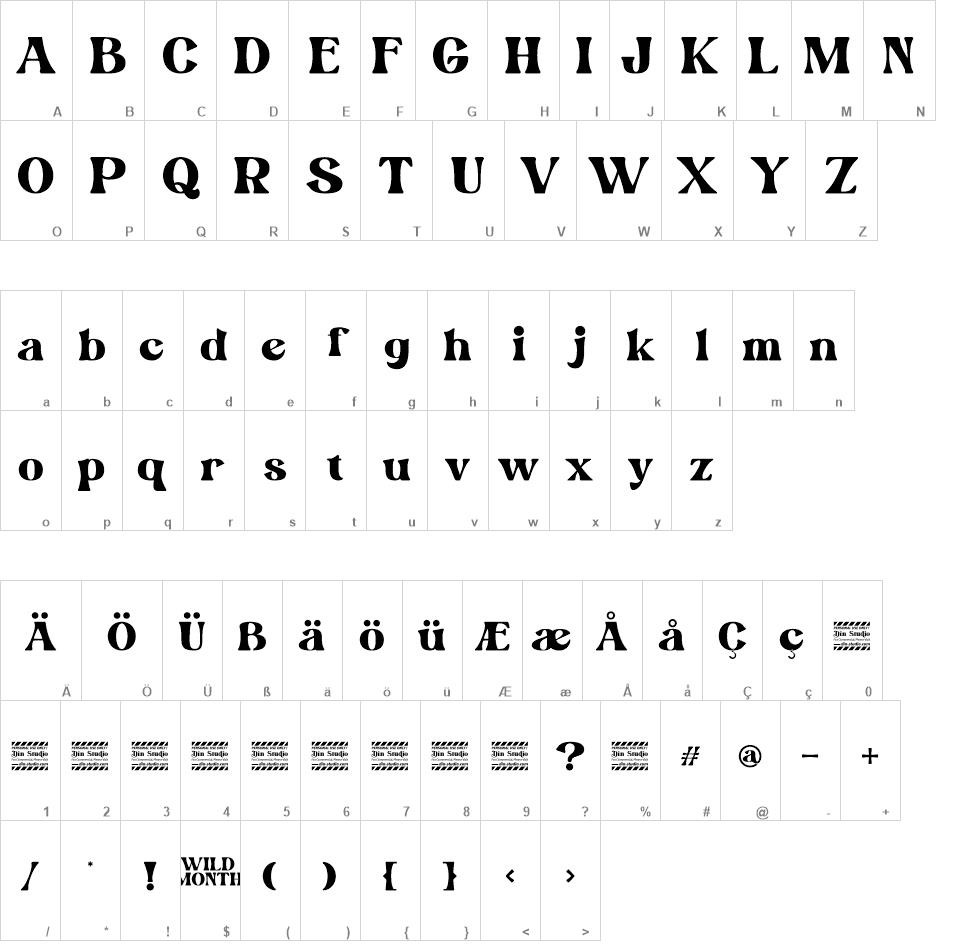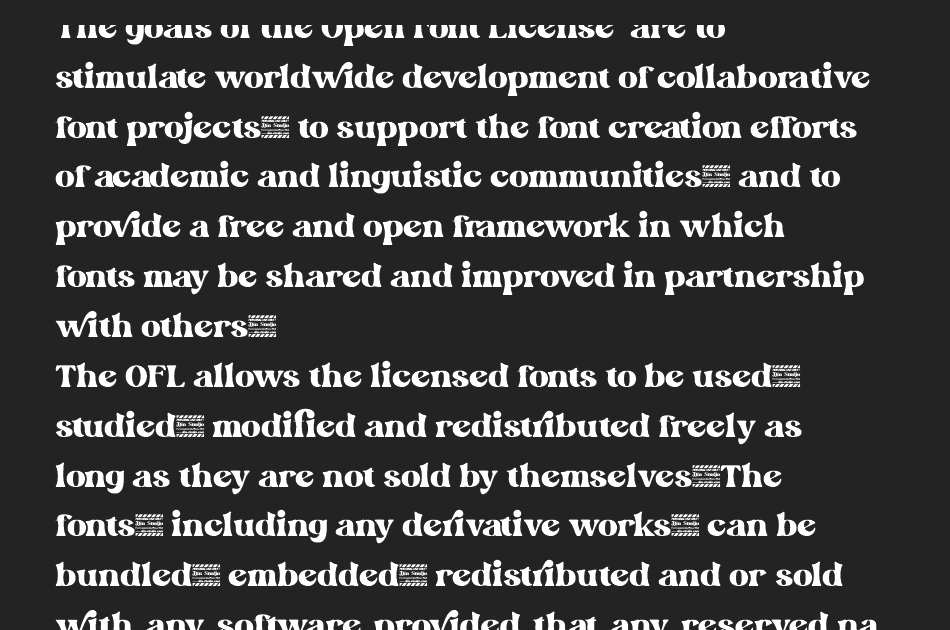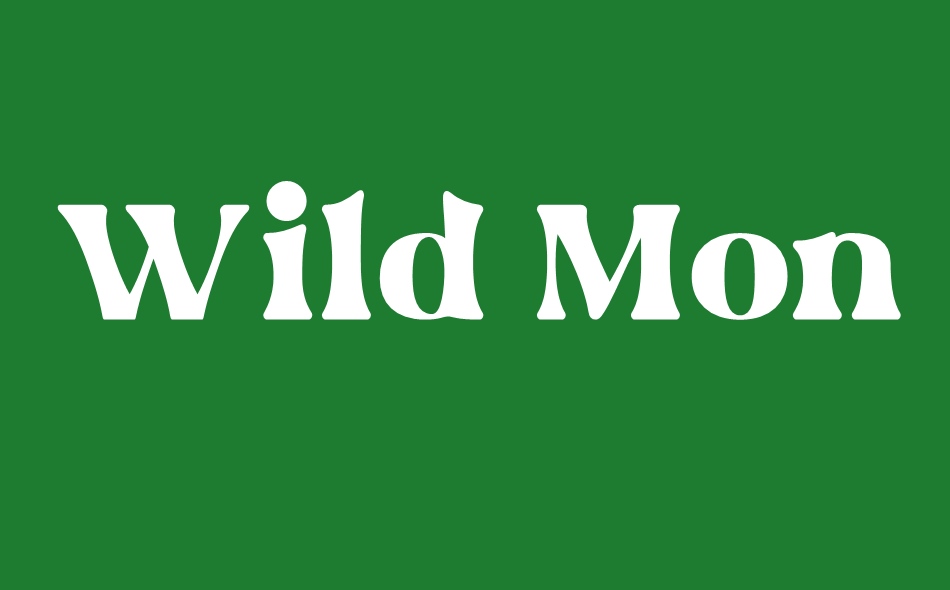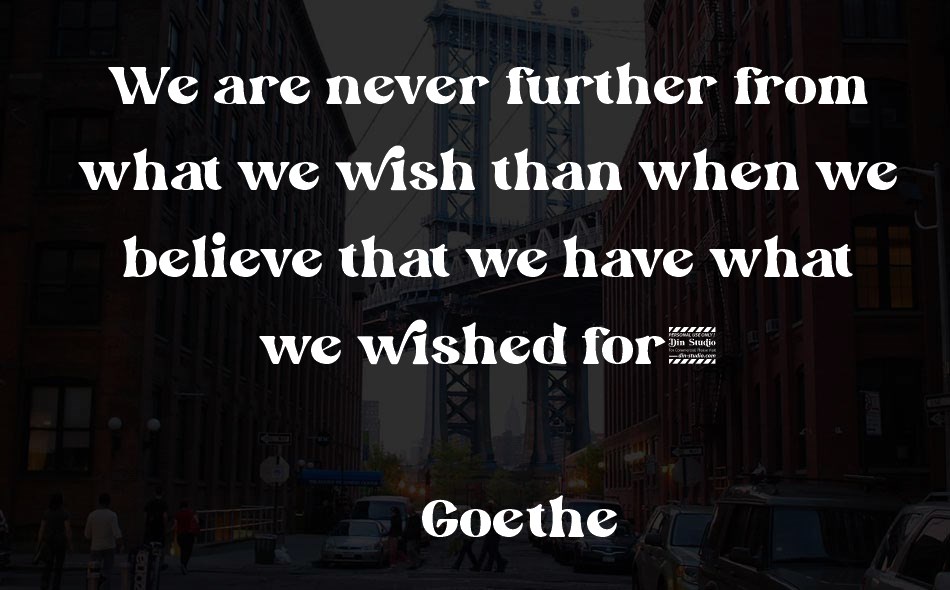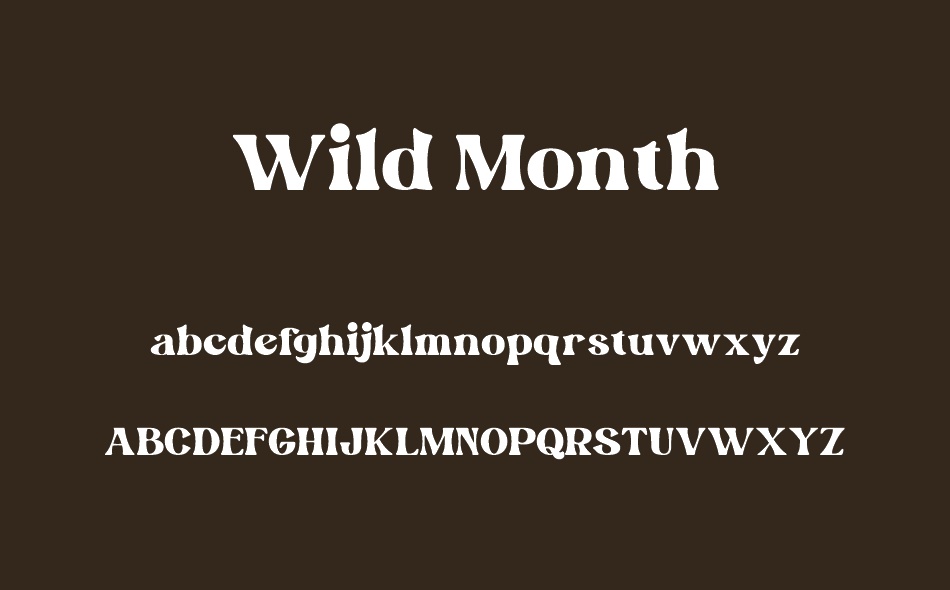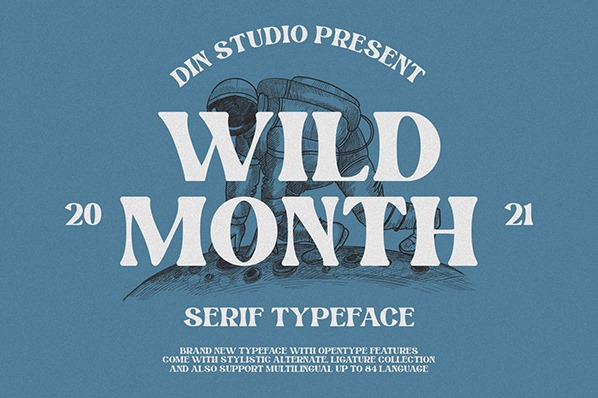
Wild Month font
Wild Month is a a serif typeface that is made in uppercase and lowercase. An excellent choice to add the right amount of modernity. This typeface with artistic style looks very interesting for loads of different projects and promotions. A